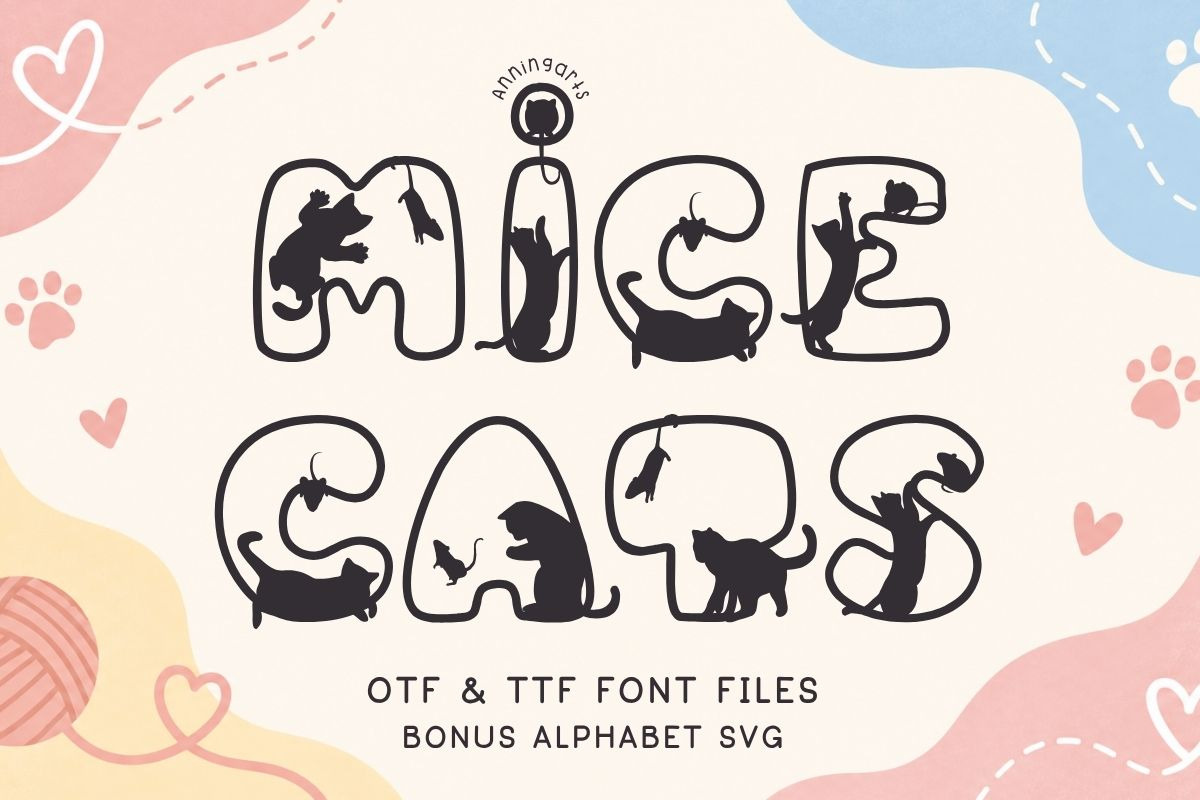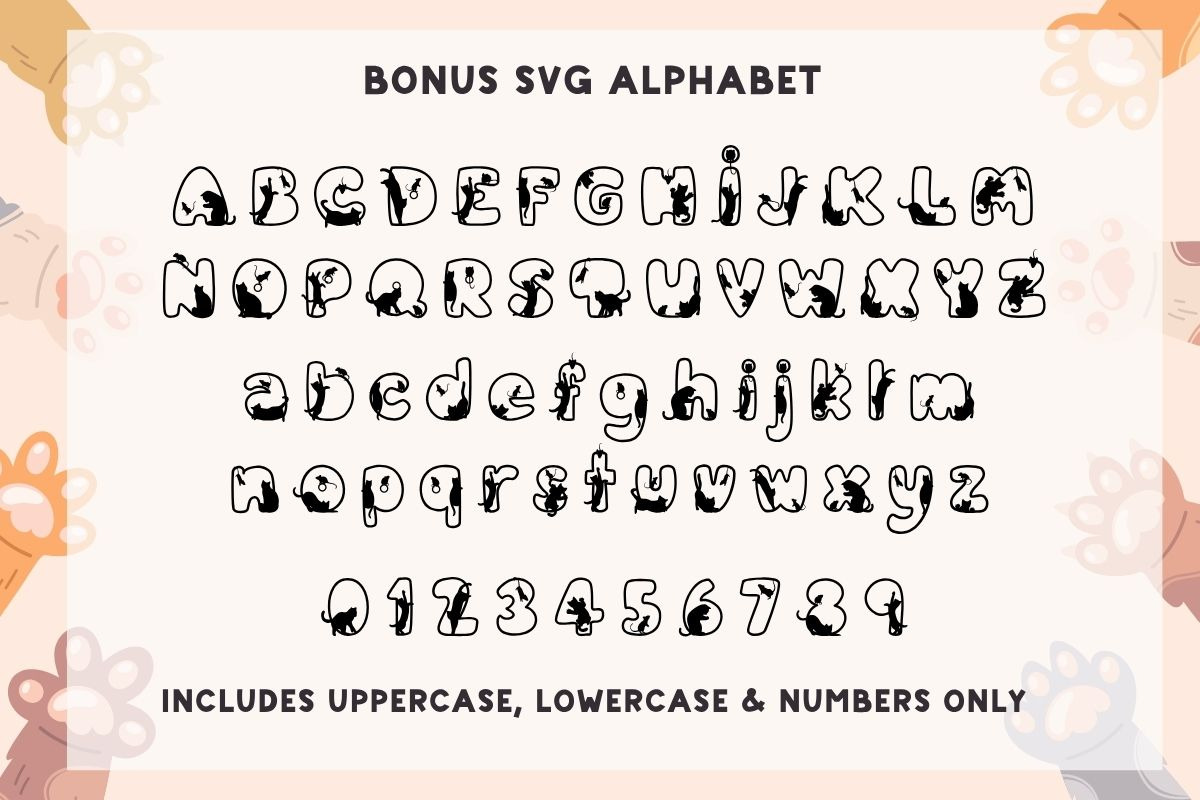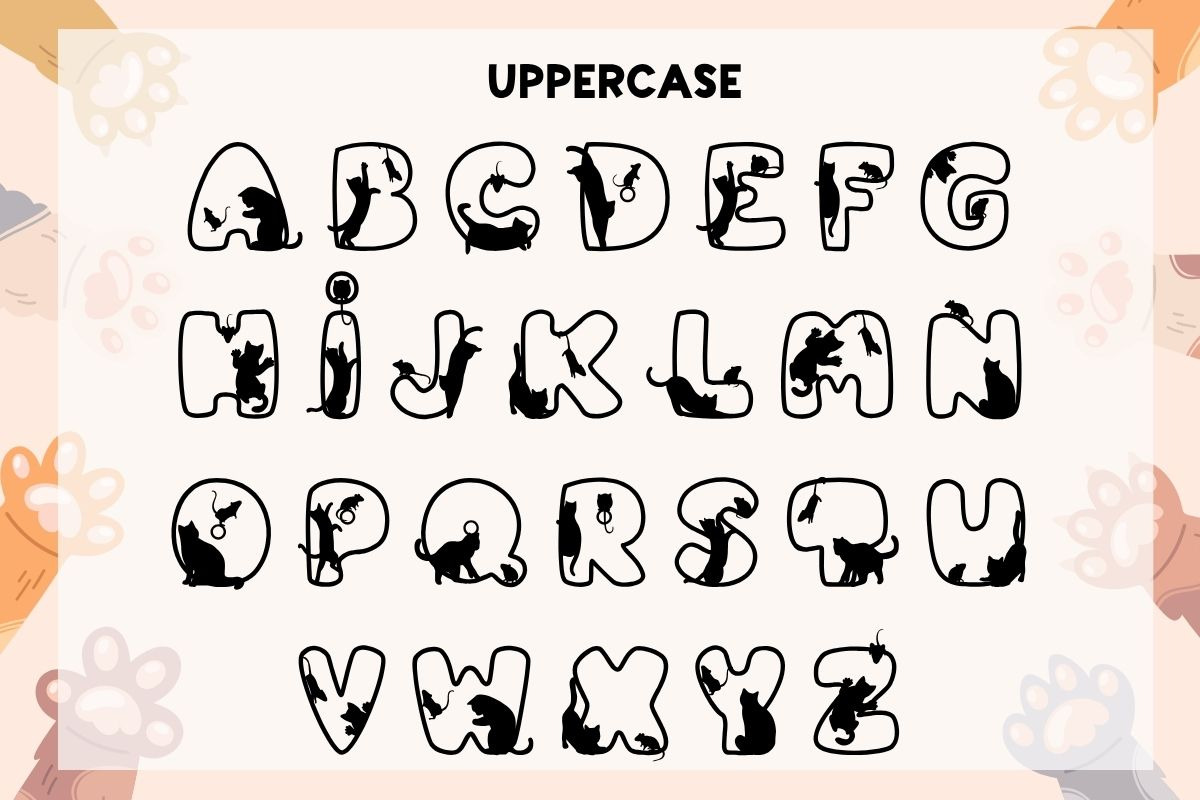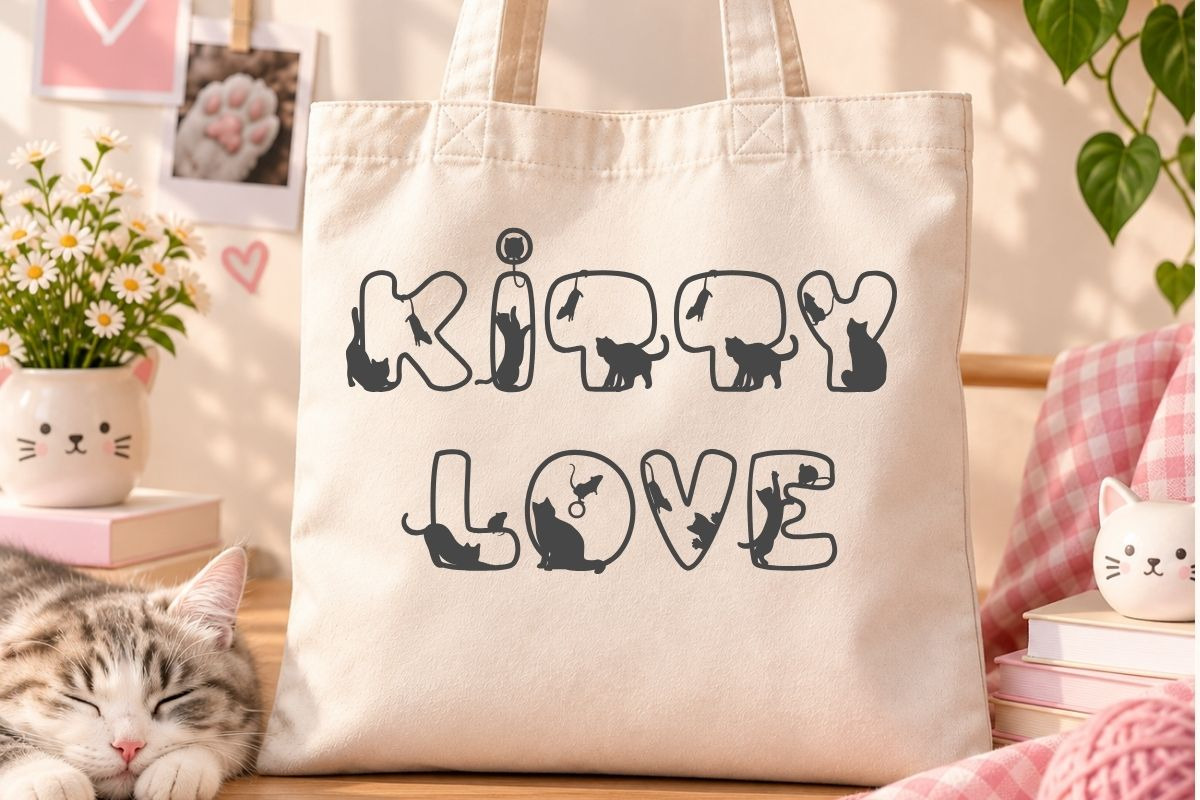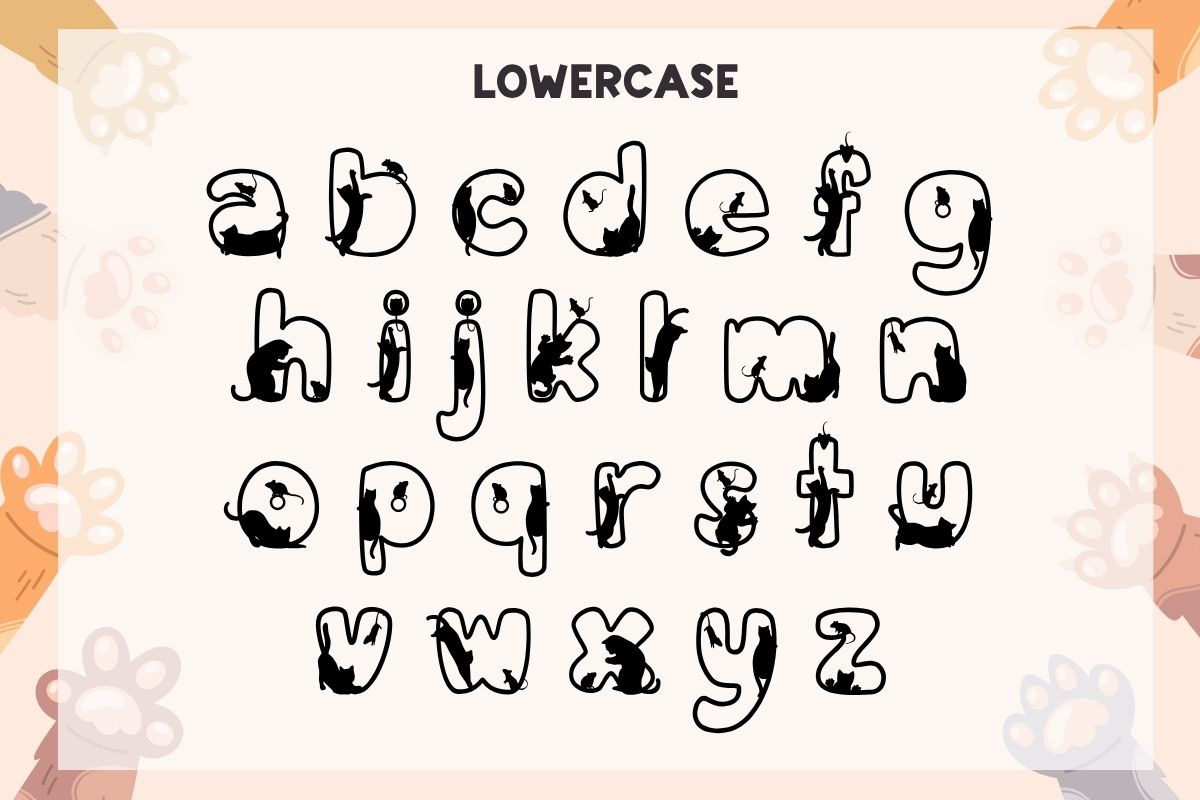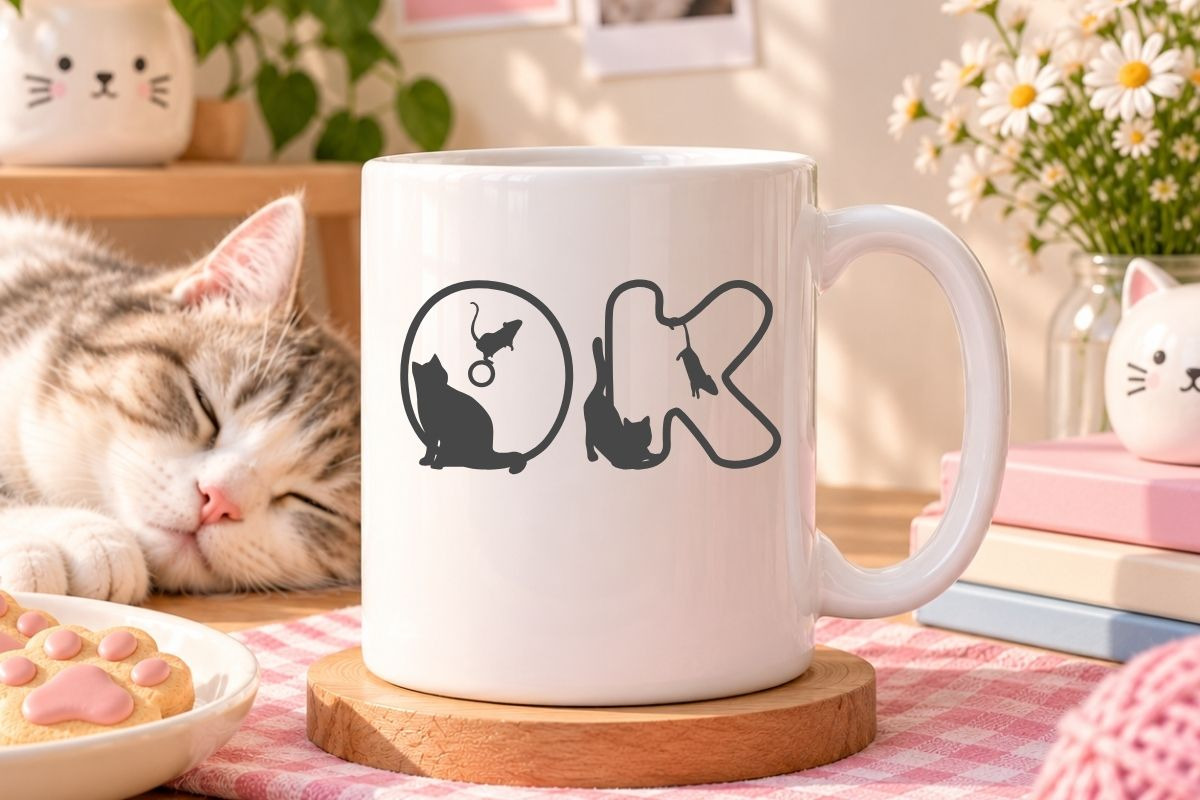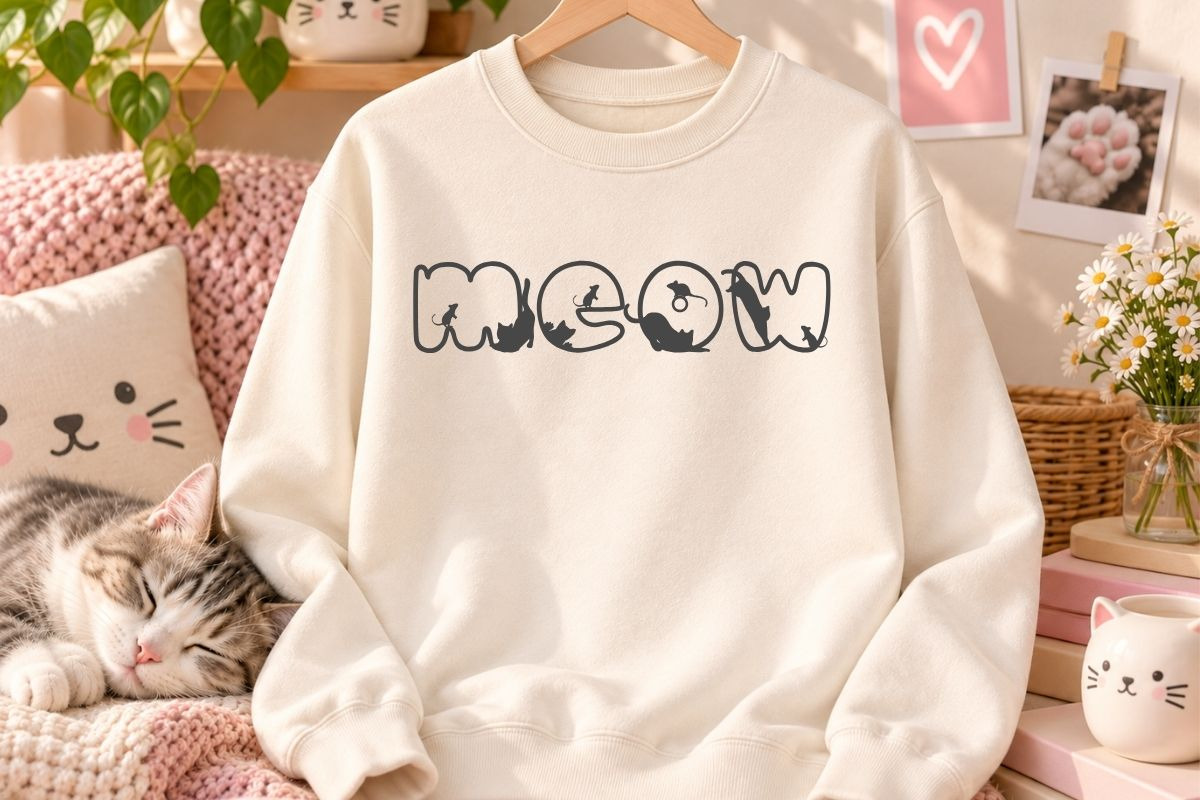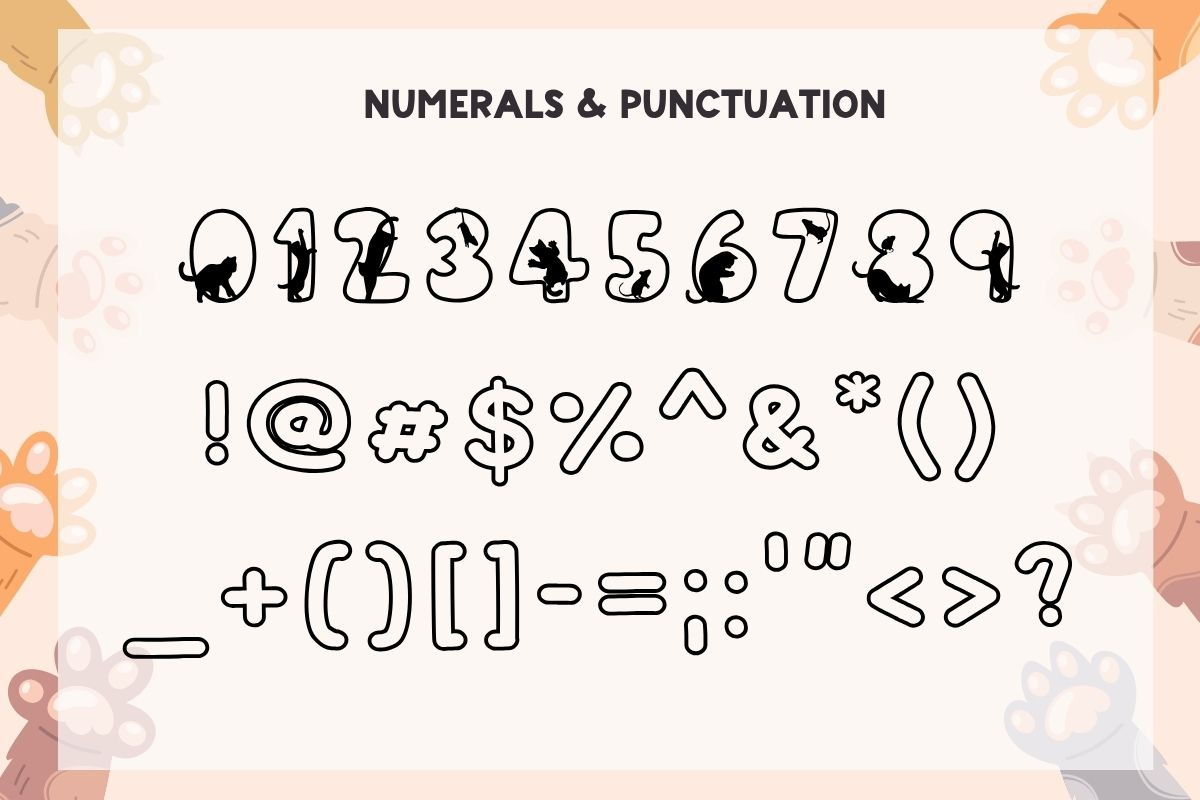
Mice Cats - Decorative Font
Mice Cats is a cute decorative font featuring playful cat silhouettes, tiny mouse details, and outlined letter shapes. The design has a sweet pet-themed style with a fun handmade feel, making it suitable for cheerful and cozy creative projects.
Mice Cats is a good choice for cat-themed crafts, pet lover designs, children’s products, nursery decor, tote bags, mugs, T-shirts, stickers, greeting cards, party signs, Cricut projects, Silhouette crafts, sublimation designs, and printable goods.